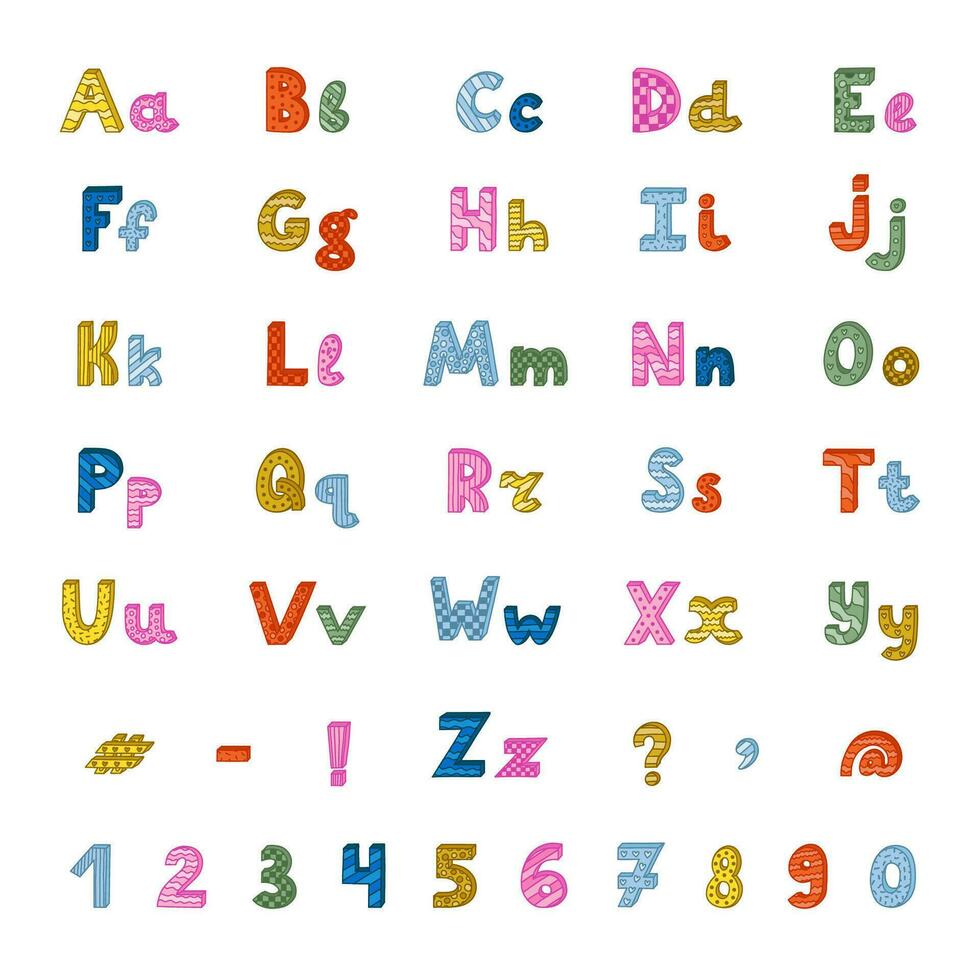
Cute funky 3d alphabet set with contrast outline and memphis decoration. Patterned bold font with shadow. Funny latin ABC with uppercase letters, punctuation marks and number set for design Pro Vector